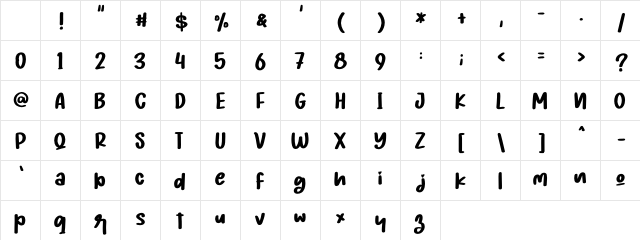
Complete Biglove Christmas - Personal Us Regular glyph index. Displaying only characters natively supported by Biglove Christmas - Personal Us Regular font.
Biglove Christmas - Personal Us is a composed and adaptable typeface that performs quietly and consistently across a wide range of design contexts.